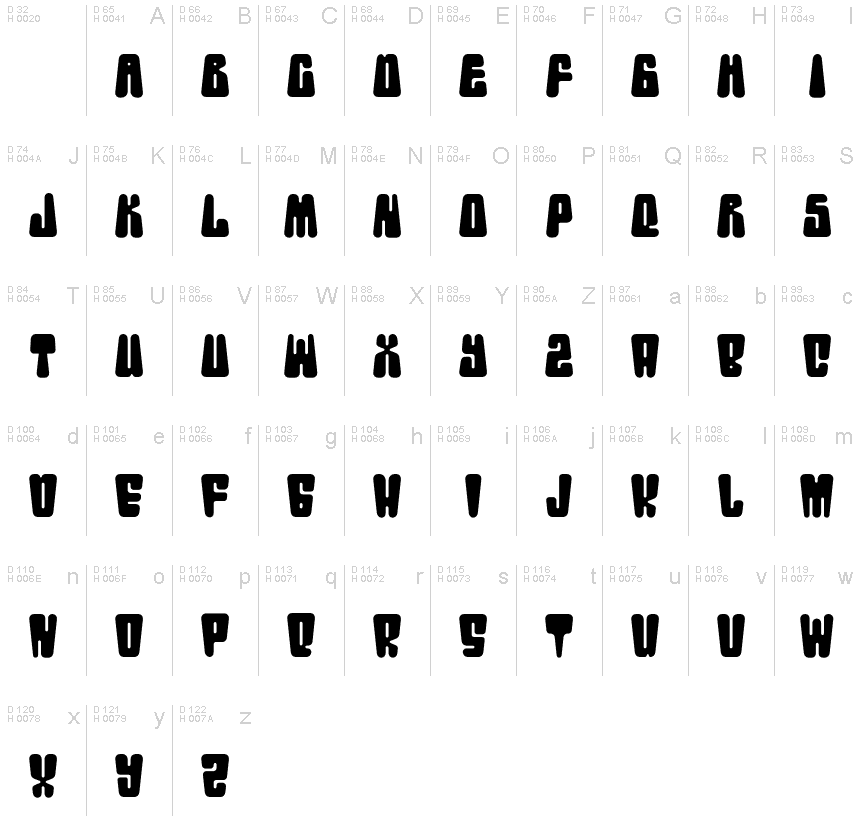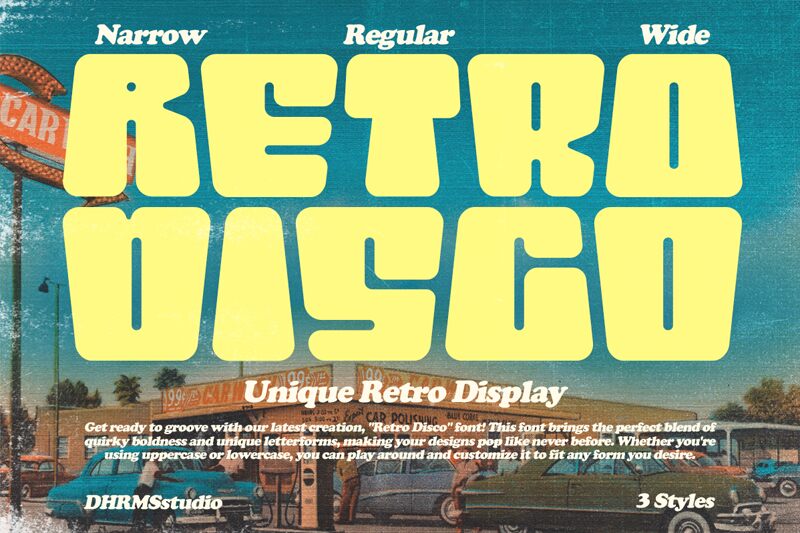
RetroDisco-Narrow
Retro Disco Narrow, a groovy and bold display font by Dharmas Studio, brings back the vibrant spirit of the disco era.
With its condensed width, this font is perfect for designing eye-catching posters and album covers that exude retro charm. Capture the essence of 70s parties and dance floors with Retro Disco Narrow, giving your projects a funky and energetic vibe. Let your creativity shine as you transport viewers to a time of disco balls, bell-bottoms, and unforgettable nights on the town. Get ready to groove with Retro Disco Narrow!